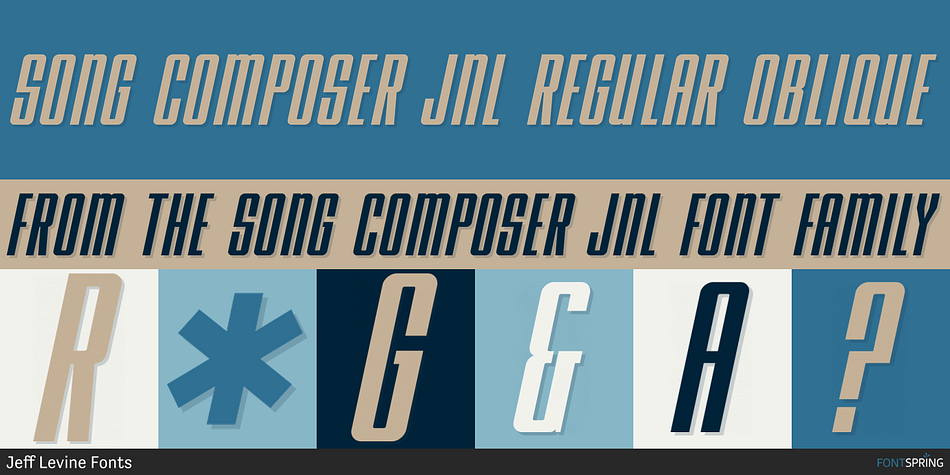
SONG COMPOSER JNL REGULAR OBLIQUE
Designed by Jeff Levine, Song Composer JNL is a display sans font family. This typeface has two styles and was published by Jeff Levine Fonts.
The sheet music for the 1939 tune “Chico’s Love Song (Ma-La-Ja Fa-La Pas-Ka Lah-Ta) [Cuban Double Talk]” may have had an odd title, but the main portion of it was hand lettered in an interesting style.
Condensed letters with rounded corners complemented by sharp lines and angles give the characters an almost futuristic look, despite the fact that they were designed during the Art Deco era.  This became the basis for Song Composer JNL, which is available in both regular and oblique versions.